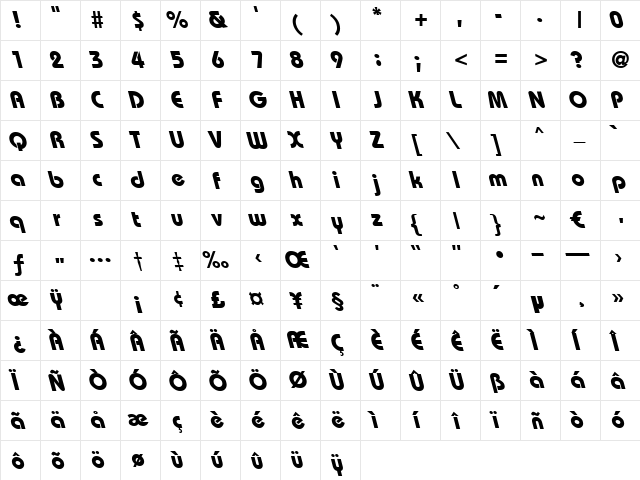
JasminBold Regular
Design Context for JasminBold Typeface
JasminBold is a composed and adaptable typeface that performs quietly and consistently across a wide range of design contexts. Its bold stroke weight gives it real presence on the page.